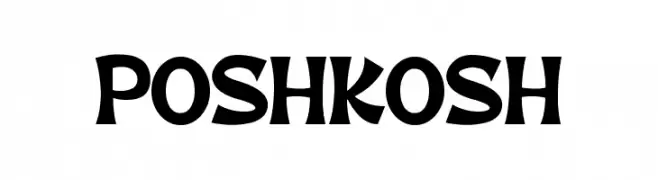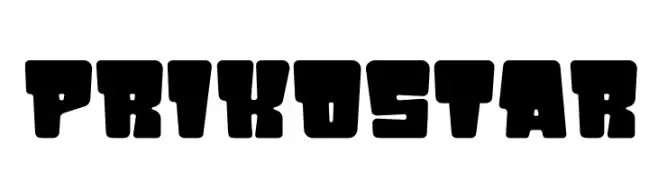
( Fonts by fsuarez913 )
A bold, playful font with rounded, bubbly characters and a retro-modern vibe.
A bold, playful font with thick, rounded characters and a whimsical style.
( Fonts by Hydric Design )
A bold, playful font with thick, rounded characters and a retro-modern style.
( Fonts by Craft Supply Co. )
A playful, wavy outline font with a whimsical and decorative style.
( Fonts by Nirmana Visual )
A bold, playful font with rounded, bulbous letterforms and a retro vibe.
( Fonts by Rian Dryana )
A playful, bold, and slightly italicized font with rounded edges.
( Fonts by Rian Dryana )
A playful, bold font with rounded, bubbly characters and a whimsical style.
( Fonts by Storytype Studio )
A bold, blocky font with a strong, impactful presence.
( Fonts by Pinisiart )
A playful, bold font with exaggerated curves and angles, perfect for creative projects.
( Fonts by Kulokale Studio )
A bold, playful font with a bubble-like, decorative style.